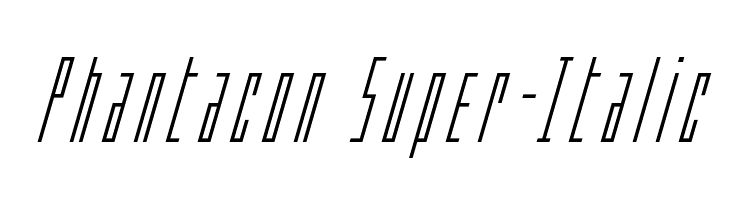
A bold, modern font with wide, geometric characters ideal for headlines.
A dynamic oblique-italic font with sharp angles and elongated forms.
A dynamic, expanded italic font with bold strokes and moderate contrast.
A bold, italicized font with a dynamic and robust style.
A shadowed, italicized font with a three-dimensional effect.
A sleek, geometric font with a modern, minimalist design.
A modern stencil font with geometric lines and open spaces, offering a clean and uniform appearance.
A modern, rounded sans-serif font with excellent readability and a friendly appearance.
A modern, narrow font with medium contrast and playful special characters.
A sleek, oblique font with a modern and dynamic style.
A modern, elegant font with high contrast and decorative elements.
A sleek, modern font with geometric and art deco influences.
A geometric, art deco-inspired font with clean lines and angular shapes.
An elegant, light italic serif font with graceful curves and refined style.
A bold, geometric font with a modern, art deco influence.
A modern serif font with angular serifs and a slightly condensed style.
A bold, modern font with a slightly condensed style and elegant design.
A bold, high-contrast serif font with sharp, elegant serifs.
A decorative Art Deco-inspired font with geometric shapes and smooth curves.
A dynamic, italicized font with geometric shapes and medium contrast.
A bold, Art Deco-inspired font with geometric precision and modern elegance.
A modern, geometric font with bold, structured characters and consistent stroke widths.
A modern, flowing italic font with smooth, continuous strokes.
A bold, oblique font with a modern, futuristic style.
A thin, italicized font with elegant, elongated characters and moderate contrast.
A narrow, italicized font with medium contrast and a modern style.
Elegant italic font with moderate contrast and strong presence.
A modern serif font with organic elements and playful swashes.